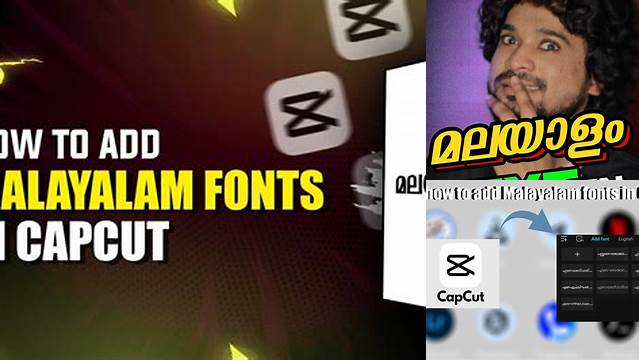
Malayalam Fonts: Free Downloads For CapCut Editing
Hey guys! Are you looking to spice up your CapCut videos with some awesome Malayalam fonts? Well, you've come to the right place! In this article, we're diving deep into everything you need to know about finding and downloading free Malayalam fonts for CapCut. Let's get started!
1. Understanding the Importance of Malayalam Fonts in Video Editing
Using the right Malayalam fonts in your video editing projects can make a huge difference. Fonts are more than just text; they convey emotion, set the tone, and enhance the overall viewing experience. A well-chosen font can capture the essence of your message and resonate with your audience, especially if they're Malayalam speakers. Think about it: a sleek, modern font might be perfect for a tech review, while a more traditional, ornate font could be ideal for a cultural documentary. So, when you're picking Malayalam fonts for your CapCut videos, take the time to consider the mood you want to create and how it aligns with your content. This small detail can significantly elevate the professional feel and impact of your videos.
4. Using Malayalam Fonts in CapCut: A Step-by-Step Guide
Alright, let’s get practical! Using Malayalam fonts in CapCut is super easy once you know how. First, open your project in CapCut and select the text layer you want to edit. In the text editing menu, you should see a font selection option. If you've already installed your Malayalam fonts, they should appear in the list. If not, double-check that the fonts are properly installed on your device and that you’ve restarted CapCut. Sometimes, you might need to import the font file directly into CapCut, depending on the app version and your device. Once you’ve selected your Malayalam font, you can adjust the size, color, and other styling options to make it look perfect in your video. Experiment with different fonts and styles to find the best fit for your content. Have fun and get creative!
5. Exploring Different Styles of Malayalam Fonts
The world of Malayalam fonts is vast and varied, offering a plethora of styles to suit any project. From elegant, calligraphic fonts that evoke a sense of tradition to bold, modern fonts that grab attention, the possibilities are endless. Serif fonts, with their small decorative strokes, can lend a formal and sophisticated look, while sans-serif fonts, which lack these strokes, often appear cleaner and more contemporary. Display fonts are designed to be eye-catching and are perfect for headlines or titles. Script fonts mimic handwriting and can add a personal touch to your videos. When choosing Malayalam fonts, consider the overall aesthetic you’re aiming for and how different styles can enhance your message. Don't be afraid to mix and match fonts to create visual interest, but always ensure that the fonts complement each other and maintain readability.
6. Tips for Choosing the Right Malayalam Font for Your Project
Choosing the right Malayalam font can feel overwhelming, but here are a few tips to guide you. First, think about your target audience. What kind of font would resonate with them? A younger audience might appreciate a more modern, playful font, while an older audience might prefer something more classic and readable. Next, consider the purpose of your video. Is it educational, entertaining, or promotional? The font should align with the video’s message and tone. Readability is also crucial. A beautiful font is useless if no one can read it! Make sure the font is clear and legible, even at smaller sizes. Finally, don’t be afraid to experiment. Try out different Malayalam fonts and see what works best. Sometimes the most unexpected choices can yield the most stunning results.
7. Common Mistakes to Avoid When Using Malayalam Fonts
Even with the best intentions, it’s easy to make mistakes when using Malayalam fonts. One common error is using too many different fonts in a single video. This can create a cluttered and unprofessional look. Stick to a maximum of two or three fonts to maintain visual consistency. Another mistake is choosing fonts that are difficult to read. Fancy or overly decorative fonts might look cool, but if they’re not legible, they’ll detract from your message. Also, be mindful of font size. Text that’s too small can strain the eyes, while text that’s too large can overwhelm the screen. Finally, always respect font licensing. Just because a font is available online doesn’t mean it’s free to use for commercial purposes. Always check the license to avoid copyright issues.
8. How to Ensure Malayalam Font Compatibility with CapCut
Ensuring that your Malayalam fonts are compatible with CapCut is essential for a smooth editing experience. Before downloading a font, check its file format. CapCut typically supports .ttf and .otf formats, so make sure the font you choose is in one of these formats. After installing the font, restart CapCut to refresh the font list. If the font still doesn’t appear, try importing it directly into CapCut using the app's font import feature. Some fonts might have compatibility issues with certain versions of CapCut, so it’s always a good idea to test the font on a sample project before using it extensively. If you encounter any issues, try updating CapCut to the latest version or searching online forums for solutions. Sometimes, other users may have encountered similar problems and found workarounds.
9. Creating Custom Malayalam Fonts for a Unique Look
If you’re feeling adventurous, why not create your own custom Malayalam fonts? There are several font creation tools available, such as FontForge, BirdFont, and Glyphs, that allow you to design and customize fonts to your exact specifications. Creating a custom font can be a time-consuming process, but it’s a great way to add a unique and personalized touch to your videos. You can start by sketching out your ideas on paper and then use the font creation tool to digitize your designs. Experiment with different letterforms, weights, and styles to create a font that perfectly reflects your brand or personal aesthetic. Once you’ve created your custom font, you can install it on your device and use it in CapCut just like any other font.
10. Malayalam Font Trends in Modern Video Editing
Staying up-to-date with the latest Malayalam font trends can help your videos stand out from the crowd. Currently, there’s a growing trend towards using bold, sans-serif fonts for titles and headings, as they convey a sense of modernity and confidence. Script fonts are also popular for adding a personal and artistic touch. Many video editors are experimenting with combining different font styles to create visual contrast and interest. For example, you might pair a bold sans-serif font with a delicate script font to create a balanced and eye-catching design. Another trend is using animated fonts, which add movement and dynamism to your text. Keep an eye on design blogs and social media to stay informed about the latest Malayalam font trends and get inspiration for your own projects.
11. Best Websites for Malayalam Font Inspiration
Need some inspiration for your next video project? There are tons of websites where you can find amazing Malayalam font ideas. Behance and Dribbble are great platforms for discovering innovative font designs and seeing how other designers are using Malayalam fonts in their work. Pinterest is another fantastic resource for visual inspiration. You can create mood boards and save font examples that catch your eye. Google Fonts also showcases different font pairings and provides examples of how to use fonts effectively. Don't forget to check out design blogs and typography websites, which often feature articles and showcases on Malayalam font design. By exploring these resources, you can gain a better understanding of current trends and discover new and exciting ways to use Malayalam fonts in your videos.
12. Free vs. Premium Malayalam Fonts: Which to Choose?
When it comes to Malayalam fonts, you might be wondering whether to go for free or premium options. Free Malayalam fonts are great for budget-conscious creators and offer a wide variety of styles. However, they might have limitations in terms of quality, features, or licensing. Premium fonts, on the other hand, typically offer higher quality, more extensive character sets, and broader licensing options. They also often come with additional features like multiple weights and styles. If you're working on a professional project or need a font with specific features, a premium font might be worth the investment. However, if you're just starting out or working on a personal project, free fonts can be a great way to explore different styles and experiment with typography. Just remember to always check the licensing terms before using any font, whether it's free or premium.
13. Troubleshooting Common Malayalam Font Issues in CapCut
Even with the best planning, you might encounter issues when using Malayalam fonts in CapCut. One common problem is that the font doesn't appear in the font list after installation. This can usually be resolved by restarting CapCut or importing the font directly into the app. Another issue is that the font displays incorrectly, with missing characters or distorted letterforms. This might be due to a compatibility issue or a problem with the font file itself. Try downloading the font from a different source or using a different font altogether. If you're experiencing performance issues, such as lag or crashes, try reducing the number of fonts you're using or optimizing your project settings. Don't hesitate to consult online forums or CapCut's support resources for assistance. There are plenty of helpful tutorials and troubleshooting guides available.
14. Mastering Malayalam Typography for Video Titles
Creating compelling video titles is an art, and mastering Malayalam typography is key to making your titles stand out. Start by choosing a font that reflects the tone and message of your video. A bold, attention-grabbing font can be great for action-packed content, while a more elegant font might be suitable for a documentary or artistic project. Pay attention to kerning and leading, which are the spacing between letters and lines, respectively. Adjust these settings to improve readability and visual appeal. Use contrast to create visual interest. For example, you might use a bold font for the main title and a lighter font for the subtitle. Experiment with different font sizes, colors, and styles to find the perfect combination. Don't forget to add visual elements like shadows, outlines, or gradients to enhance the title's impact. By mastering these techniques, you can create Malayalam video titles that captivate your audience and draw them into your content.
15. Integrating Malayalam Fonts with Video Effects in CapCut
Integrating Malayalam fonts with video effects can take your CapCut projects to the next level. Experiment with different effects to create dynamic and visually appealing text animations. For example, you might use a fade-in effect to gradually reveal the text, or a zoom effect to draw attention to a specific word or phrase. Add shadows, glows, or outlines to make the text stand out against the background. Use color grading to match the font color with the overall color scheme of your video. Try syncing the text animations with the music or sound effects to create a cohesive and engaging experience. Don't be afraid to get creative and experiment with different combinations of fonts and effects. The possibilities are endless!
16. Optimizing Malayalam Fonts for Mobile Video Editing
When editing videos on mobile devices, it’s important to optimize your Malayalam fonts for the smaller screen size. Choose fonts that are clear and legible, even at smaller sizes. Avoid overly decorative or complex fonts that might be difficult to read on a mobile device. Use a font size that is large enough to be easily readable, but not so large that it overwhelms the screen. Pay attention to the spacing between letters and lines to ensure that the text is easy to read. Test your videos on different mobile devices to make sure the fonts look good on all screens. Consider using different fonts for mobile and desktop versions of your videos to ensure the best viewing experience for all users.
17. The Future of Malayalam Typography in Digital Media
The future of Malayalam typography in digital media is bright. With the increasing popularity of online video content, there’s a growing demand for high-quality Malayalam fonts that can enhance the viewing experience. We can expect to see more innovative font designs that incorporate modern trends and technologies. Animated fonts, variable fonts, and 3D fonts are likely to become more prevalent. Artificial intelligence (AI) might also play a role in font design, helping to automate the creation process and generate personalized fonts based on user preferences. As digital media continues to evolve, Malayalam typography will play an increasingly important role in shaping the way we communicate and consume information.
18. Malayalam Fonts for Social Media Content Creation
Creating engaging social media content requires eye-catching Malayalam fonts. Choose fonts that align with your brand's personality and style. Use bold fonts for headlines and titles to grab attention. Opt for readable fonts for captions and body text. Experiment with different font colors and styles to create visual contrast. Add text animations to make your content more dynamic. Consider using different fonts for different social media platforms to optimize the viewing experience for each platform. Use Malayalam fonts that are optimized for mobile devices, as most social media users access content on their smartphones. By using the right Malayalam fonts, you can create social media content that stands out from the crowd and captures your audience's attention.
19. Best Practices for Malayalam Font Pairing in Videos
Paring Malayalam fonts effectively can enhance the visual appeal of your videos. Start by choosing a dominant font for your headlines or titles. Then, select a secondary font that complements the dominant font for your body text or captions. Avoid using too many different fonts, as this can create a cluttered and unprofessional look. Stick to a maximum of two or three fonts per video. Use contrasting font styles to create visual interest. For example, you might pair a bold sans-serif font with a delicate script font. Make sure the fonts you choose are legible and easy to read. Test your font pairings on different devices to ensure they look good on all screens. By following these best practices, you can create visually stunning videos with well-paired Malayalam fonts.
20. Using Malayalam Fonts to Enhance Branding in Video Content
Consistent branding is essential for building brand recognition and loyalty. Using specific Malayalam fonts that align with your brand’s visual identity can greatly enhance your branding efforts in video content. Choose fonts that reflect your brand’s personality and values. Use the same fonts consistently across all your video content to create a cohesive brand image. Incorporate your brand’s fonts into your video intros, outros, and watermarks. By consistently using specific Malayalam fonts, you can reinforce your brand identity and make your videos instantly recognizable.
21. How to Use Malayalam Fonts for Subtitles in CapCut
Subtitles are crucial for making your videos accessible to a wider audience. Choosing the right Malayalam fonts for subtitles can greatly improve the viewing experience. Opt for fonts that are clear, legible, and easy to read. Avoid using overly decorative or complex fonts that might be difficult to decipher. Use a font size that is large enough to be easily readable, but not so large that it obstructs the video. Position the subtitles at the bottom of the screen, where they are easily visible. Use a contrasting font color to make the subtitles stand out against the background. Consider adding a background or shadow to the subtitles to improve readability. By following these guidelines, you can create Malayalam subtitles that are both informative and visually appealing.
22. Exploring Calligraphy-Inspired Malayalam Fonts
Calligraphy-inspired Malayalam fonts can add a touch of elegance and sophistication to your videos. These fonts often mimic the fluid strokes and intricate details of traditional Malayalam calligraphy. Use calligraphy fonts for titles, headings, or decorative elements. Pair them with simpler fonts for body text to create visual balance. Be mindful of readability, as some calligraphy fonts can be difficult to read at smaller sizes. Use them sparingly to avoid overwhelming the viewer. Explore different styles of calligraphy fonts, from traditional to modern, to find the perfect fit for your project. By using calligraphy-inspired Malayalam fonts, you can add a unique and artistic touch to your videos.
23. Modern and Minimalist Malayalam Font Styles
If you're aiming for a clean and contemporary look, modern and minimalist Malayalam font styles are an excellent choice. These fonts typically feature simple, geometric shapes and clean lines. They are highly legible and work well in a variety of contexts. Use them for titles, body text, or captions. Pair them with bold colors and minimalist graphics to create a sleek and modern aesthetic. Avoid using overly decorative or ornate fonts in combination with minimalist fonts. Stick to a simple and uncluttered design to maintain a modern look. By using modern and minimalist Malayalam font styles, you can create videos that are both stylish and professional.
24. Bold and Impactful Malayalam Fonts for Attention-Grabbing Videos
For videos that need to grab attention quickly, bold and impactful Malayalam fonts are the way to go. These fonts are designed to be eye-catching and memorable. Use them for titles, headlines, or call-to-actions. Choose fonts that are thick, heavy, and visually striking. Pair them with vibrant colors and dynamic animations to maximize their impact. Avoid using too many bold fonts in a single video, as this can be overwhelming. Use them strategically to highlight key messages and draw viewers' attention. By using bold and impactful Malayalam fonts, you can create videos that are sure to make a lasting impression.
25. Using Malayalam Fonts to Create a Retro Video Aesthetic
Creating a retro video aesthetic can be a fun and nostalgic way to engage your audience. Choose Malayalam fonts that evoke the style and feel of past decades. Look for fonts with rounded shapes, vintage textures, or hand-drawn elements. Use them in combination with retro color palettes, film grain effects, and vintage footage. Experiment with different font styles and sizes to create a unique retro look. Research popular fonts from the era you’re trying to emulate to ensure authenticity. By using Malayalam fonts strategically, you can transport your viewers back in time and create a truly memorable video experience.
26. Animating Malayalam Fonts in CapCut for Dynamic Effects
Animating Malayalam fonts in CapCut can add a dynamic and engaging element to your videos. Experiment with different animation styles, such as fade-in, slide-in, zoom, or rotate. Use keyframes to control the timing and speed of your animations. Sync the animations with the music or sound effects to create a cohesive and visually appealing effect. Consider using different animations for different fonts or words to create visual contrast. Don't overdo the animations, as this can be distracting. Use them sparingly to enhance key messages and draw viewers' attention. By animating Malayalam fonts in CapCut, you can create videos that are both dynamic and visually stunning.
27. Creating a Malayalam Font Style Guide for Consistent Branding
Developing a Malayalam font style guide is crucial for maintaining consistent branding across all your video content. Your style guide should outline the specific fonts, sizes, colors, and styles that you use in your videos. It should also include guidelines for font pairing, spacing, and positioning. Share your style guide with your team members to ensure that everyone is on the same page. Regularly review and update your style guide as needed to reflect changes in your brand’s visual identity. By creating and adhering to a Malayalam font style guide, you can ensure that your videos are always on-brand and visually consistent.
28. Free Resources for Learning Malayalam Typography
Learning Malayalam typography can greatly enhance your video editing skills. Fortunately, there are many free resources available to help you get started. Online tutorials, design blogs, and typography websites offer valuable insights and tips. Font foundries often provide educational resources on their websites. Online forums and communities can provide a platform for asking questions and sharing knowledge. Experiment with different fonts and styles to develop your own unique style. Practice regularly and seek feedback from other designers. By taking advantage of these free resources, you can master Malayalam typography and create visually stunning videos.
29. Monetizing Your Malayalam Typography Skills in Video Editing
If you have a passion for Malayalam typography and video editing, there are several ways to monetize your skills. You can offer your services as a freelance video editor or motion graphics designer. You can create and sell your own Malayalam font designs on online marketplaces. You can teach online courses or workshops on Malayalam typography and video editing. You can create and sell video templates with custom Malayalam fonts. You can partner with businesses or organizations to create branded video content. By leveraging your Malayalam typography skills, you can turn your passion into a profitable career.
30. Advanced Malayalam Typography Techniques for Professional Videos
To create truly professional videos, it’s essential to master advanced Malayalam typography techniques. Experiment with kerning and tracking to fine-tune the spacing between letters. Use ligatures to create smooth transitions between certain letter combinations. Explore the use of variable fonts to create dynamic and responsive typography. Master the art of micro-typography to create subtle but impactful design details. Learn how to use advanced typography tools in video editing software. Continuously refine your skills and stay up-to-date with the latest trends and techniques. By mastering advanced Malayalam typography techniques, you can elevate your videos to a whole new level of professionalism and artistry.